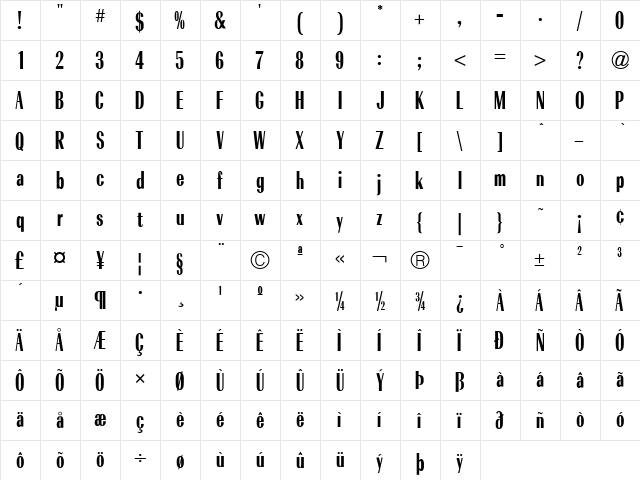
RadiantCondICG Medium Font Preview
RadiantCondICG Medium
RadiantCondICG Medium Font Details
Design Context for RadiantCondICG Typeface
RadiantCondICG offers clean, dependable letterforms without strong stylistic allegiance, making it a practical choice for designers who need flexibility. The condensed width makes it efficient for tight spaces without sacrificing legibility.